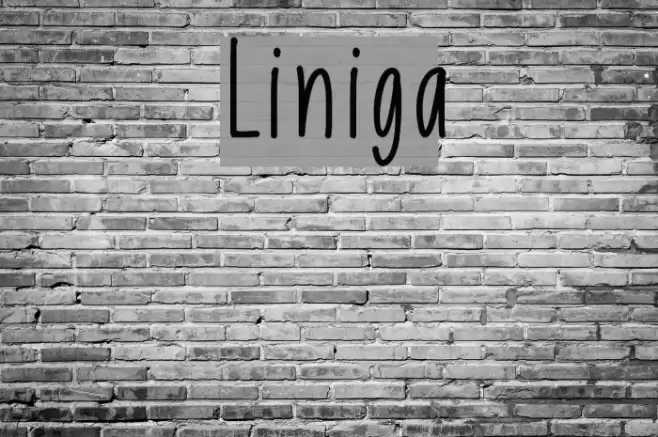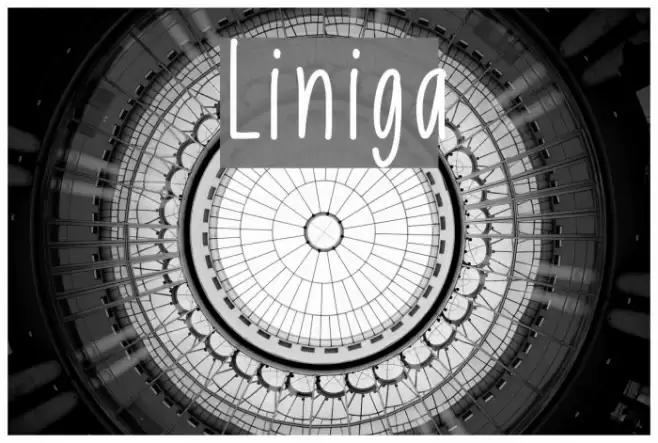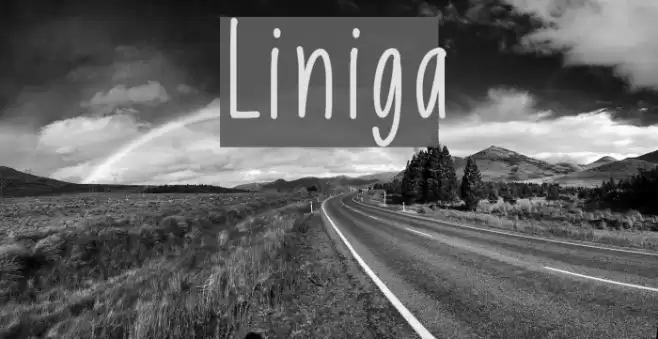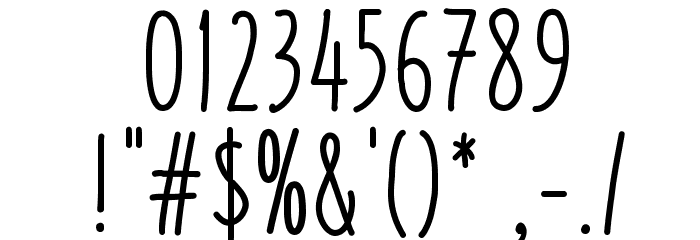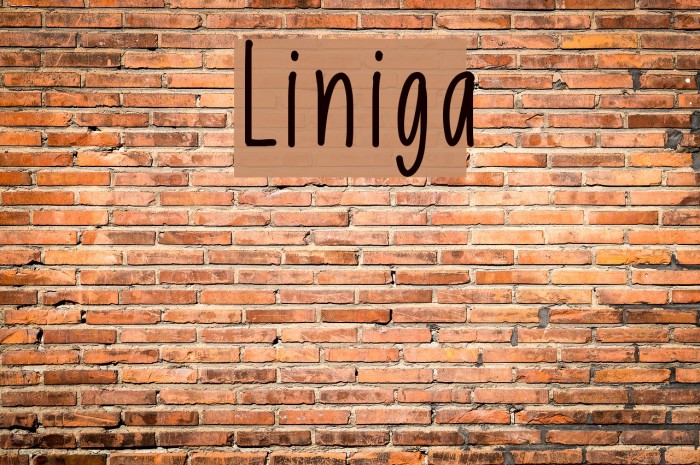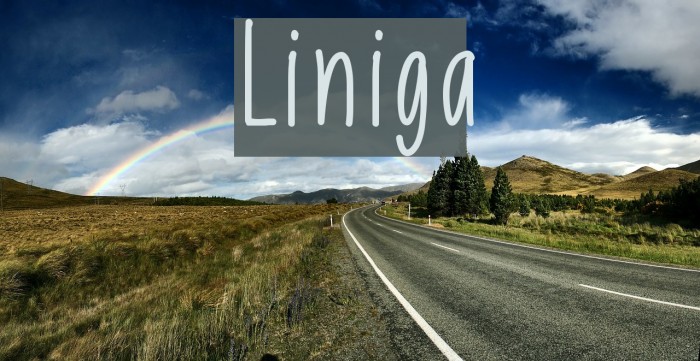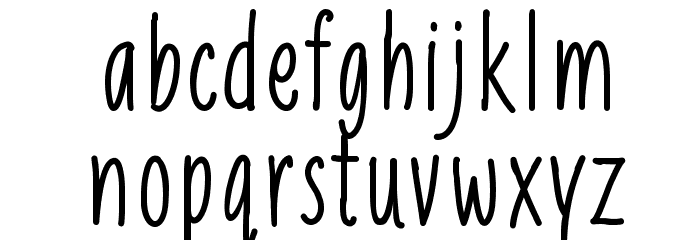
Liniga Font
Liniga Description
This font features a playful and informal handwritten style, characterized by its tall, narrow letterforms and slightly irregular strokes. The uppercase letters are bold and prominent, while the lowercase letters maintain a consistent flow with a casual feel. The numerals are distinct and easy to read, complementing the overall aesthetic. Special characters are creatively integrated, adding to the font's versatility. The font's unique charm makes it suitable for projects that require a personal touch or a friendly, approachable vibe.
A playful handwritten font with tall, narrow letterforms and a casual style from Handwritten fonts.
- Proposed Projects: Ideal for greeting cards, children's books, casual branding, and social media graphics.
- Overall Style: Casual, Playful
- Use Case: Headlines, Informal text, Creative projects